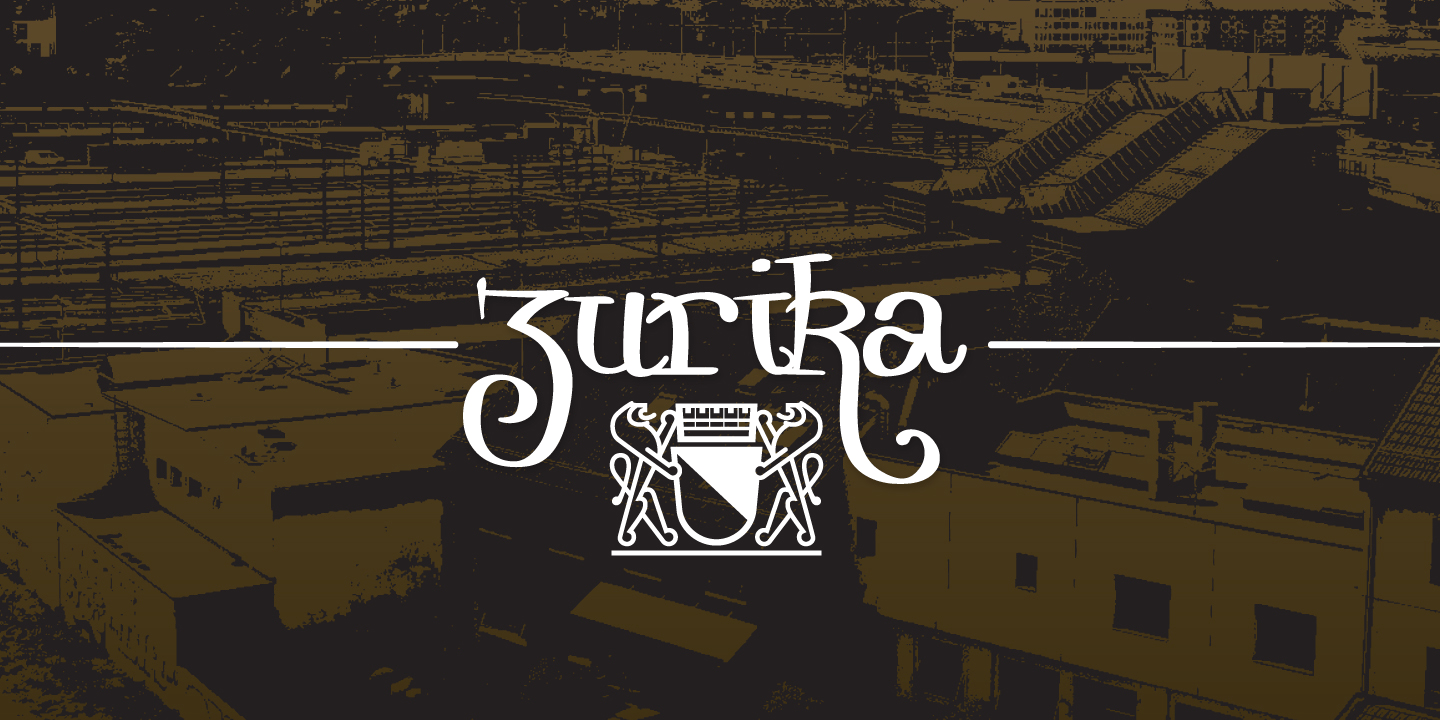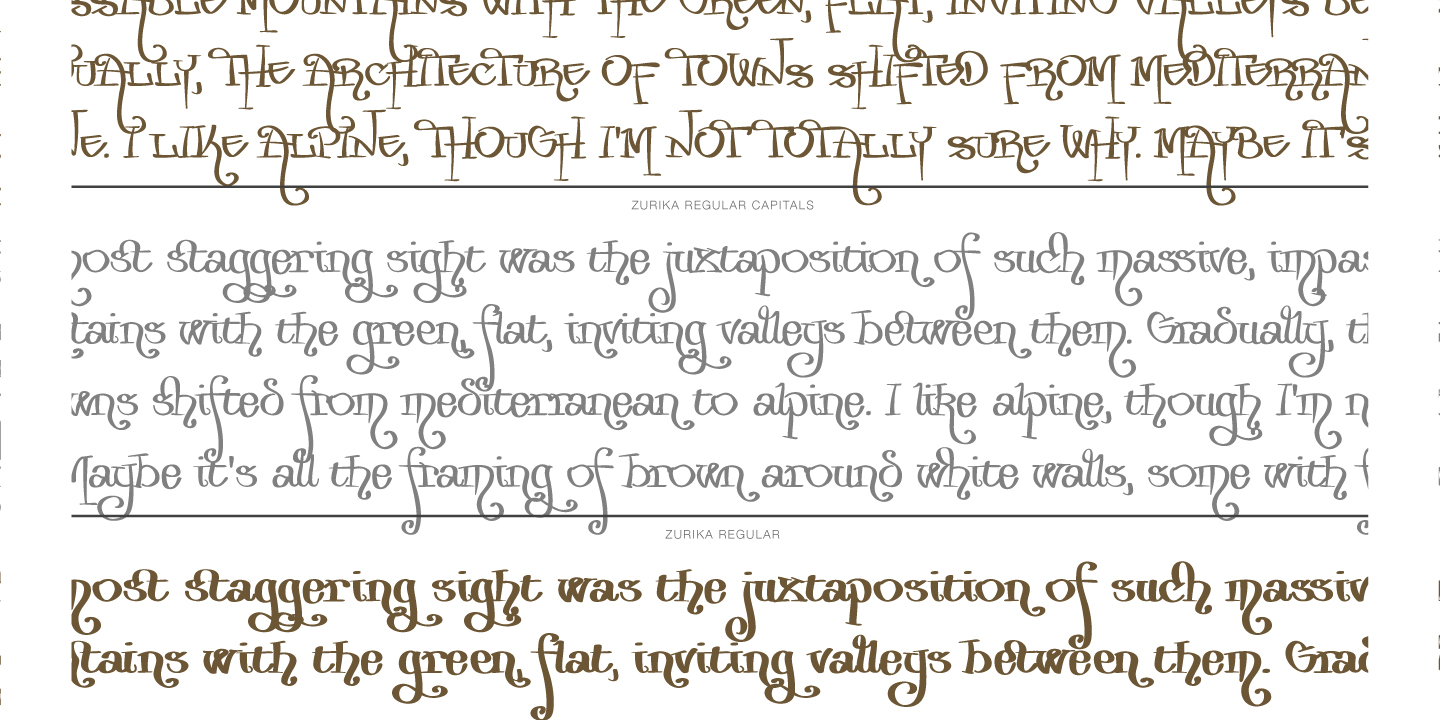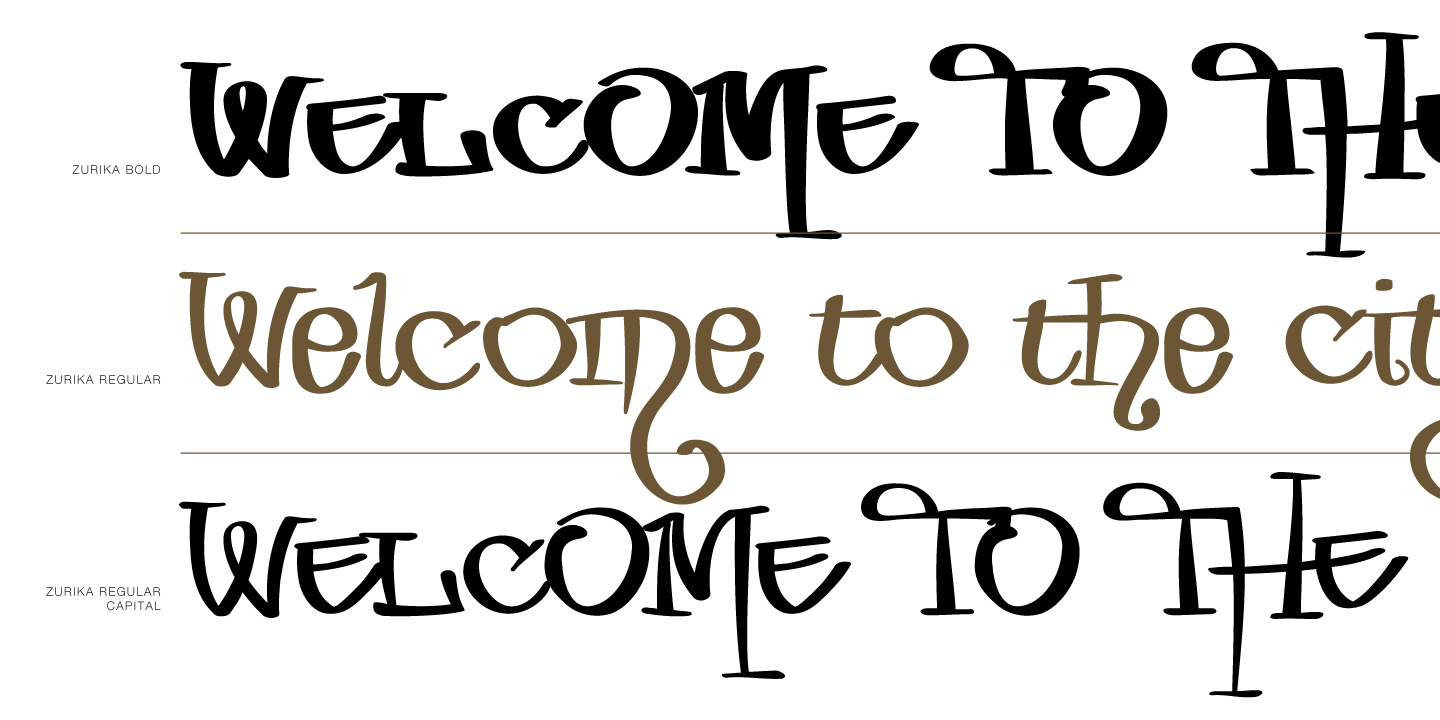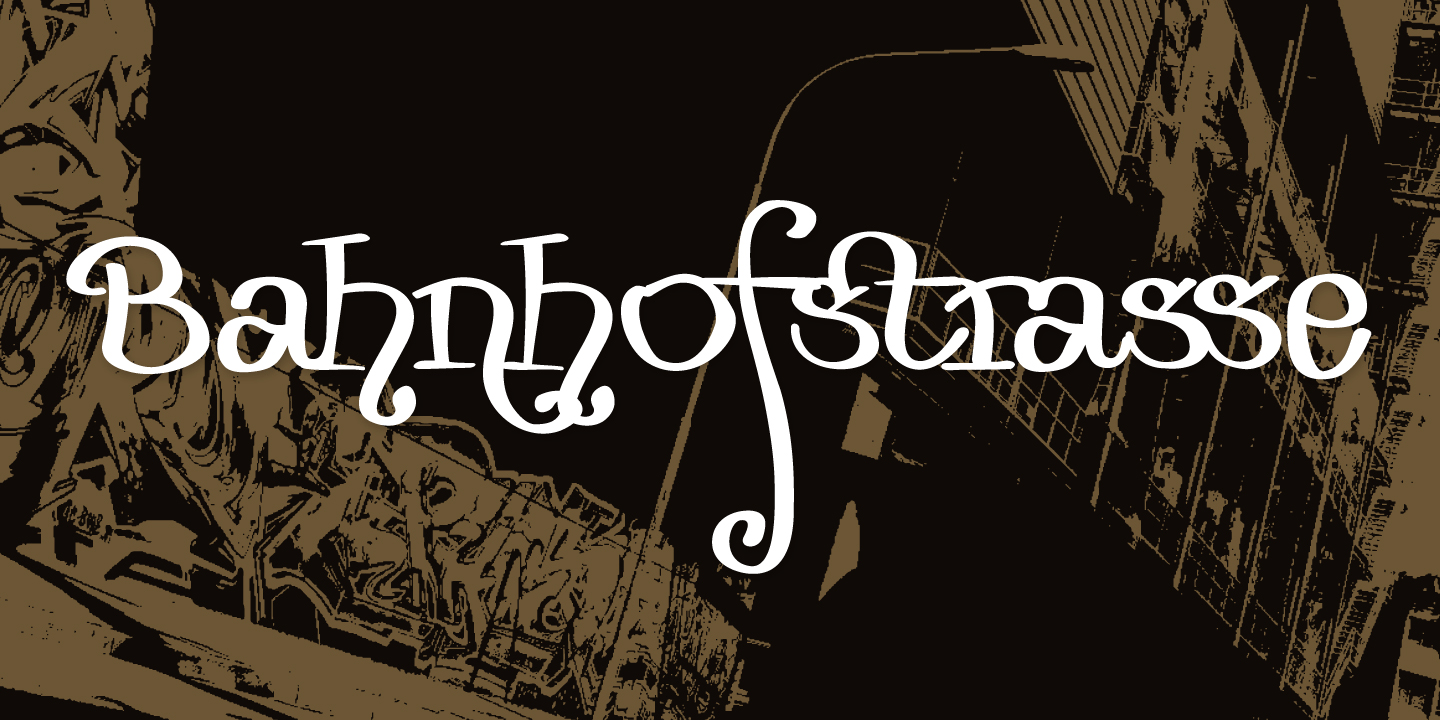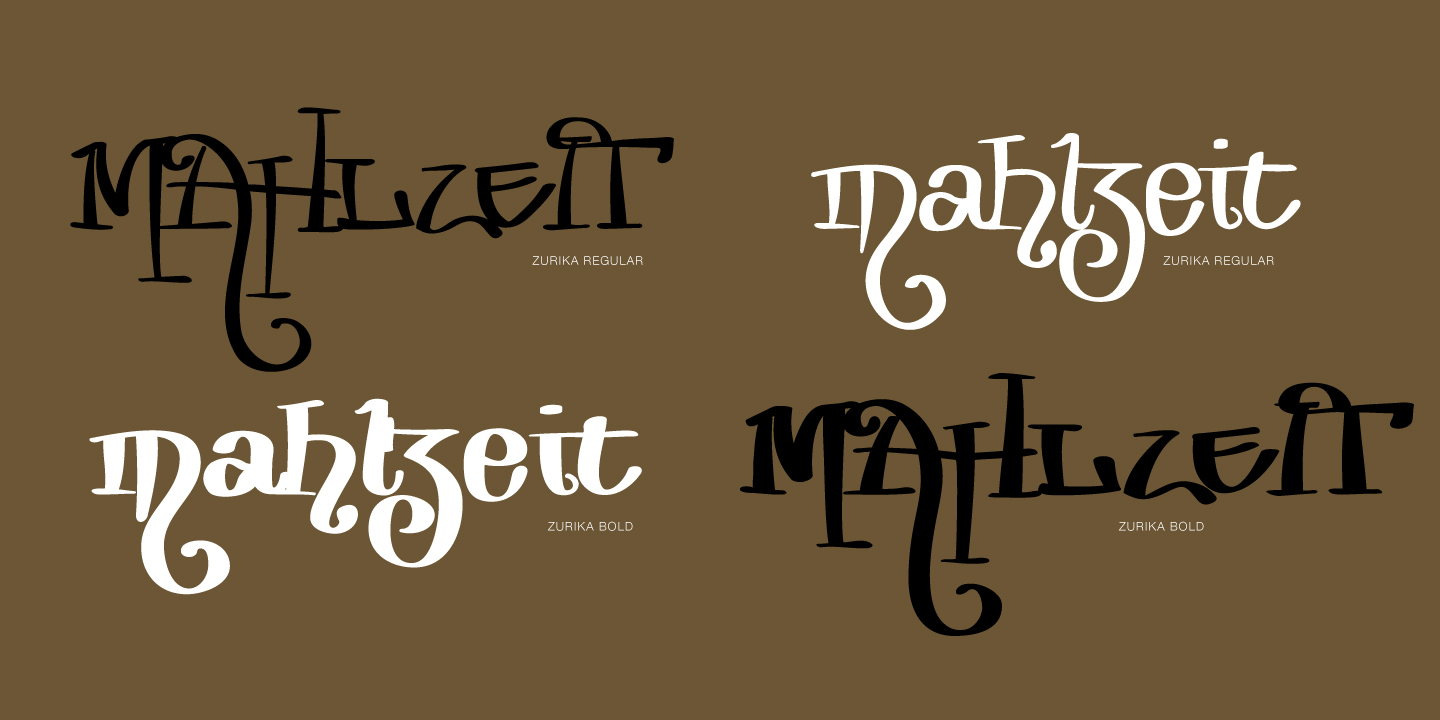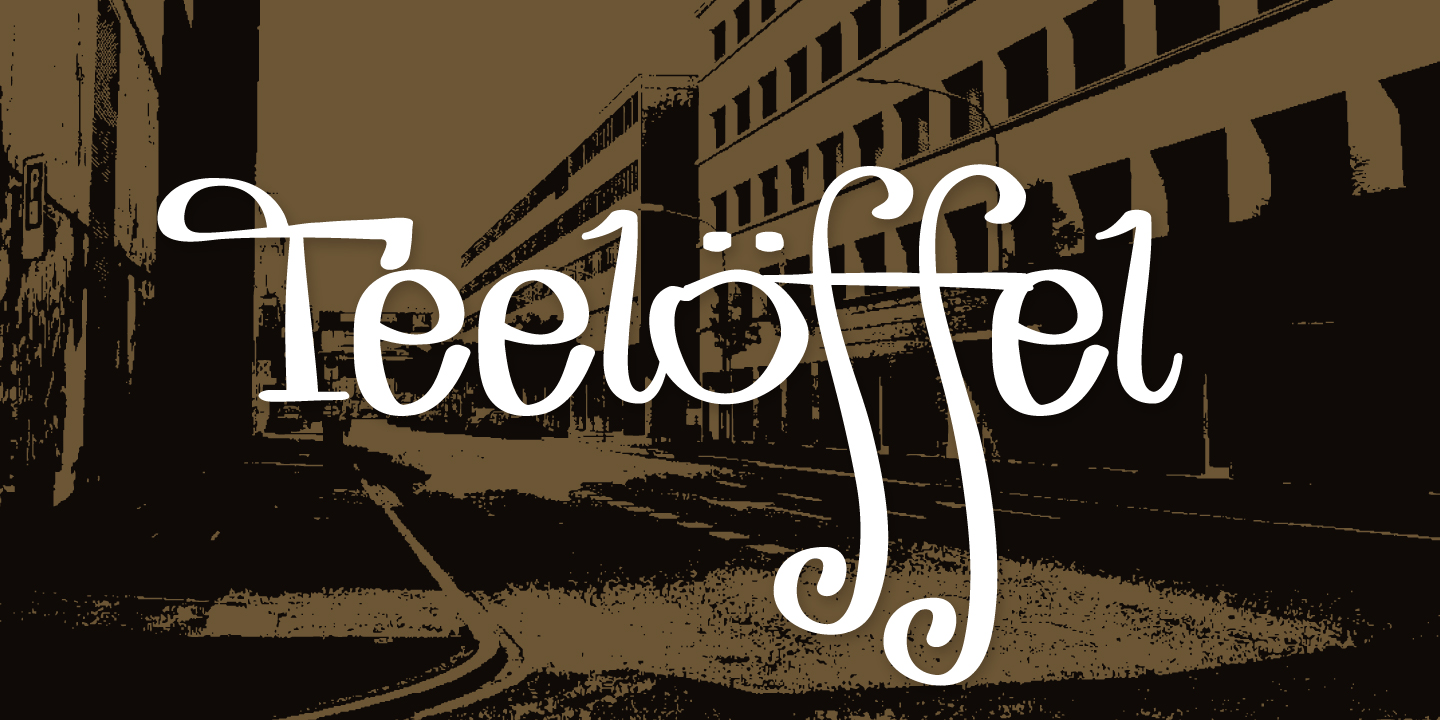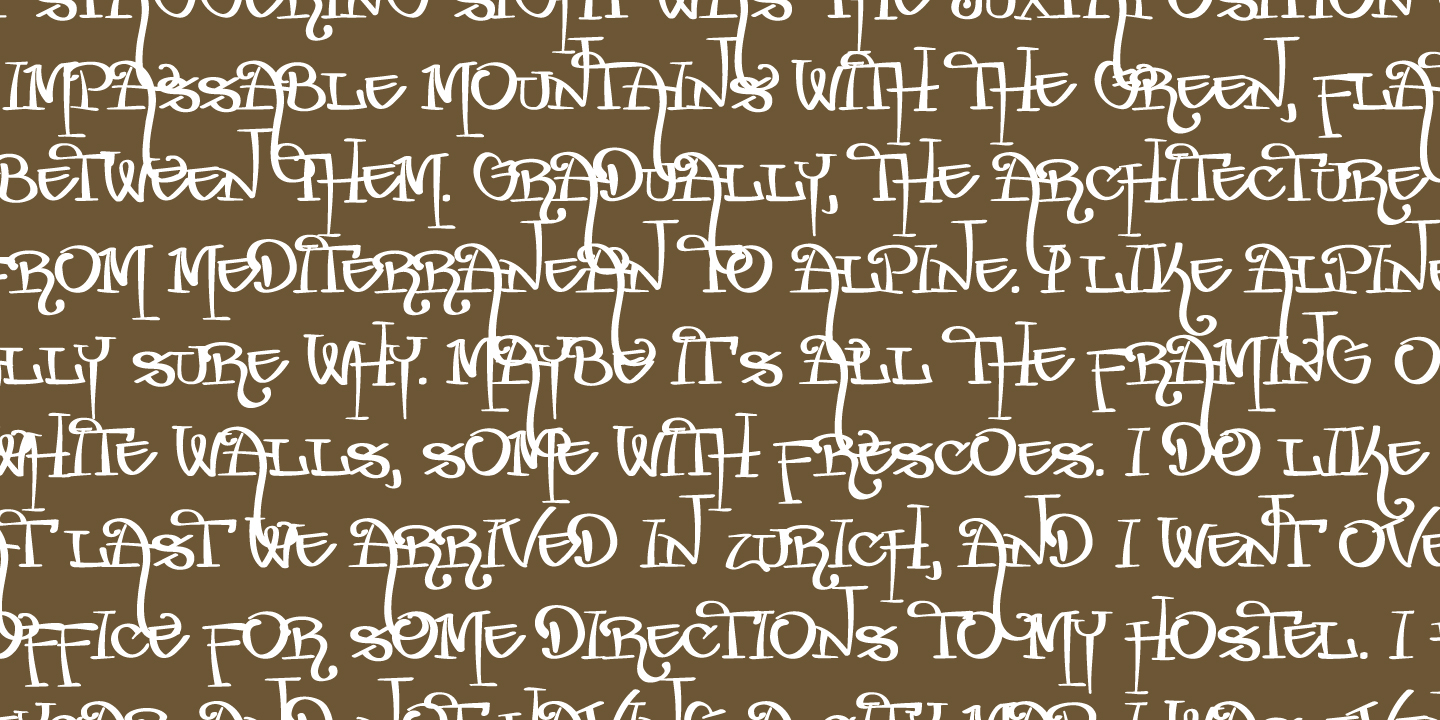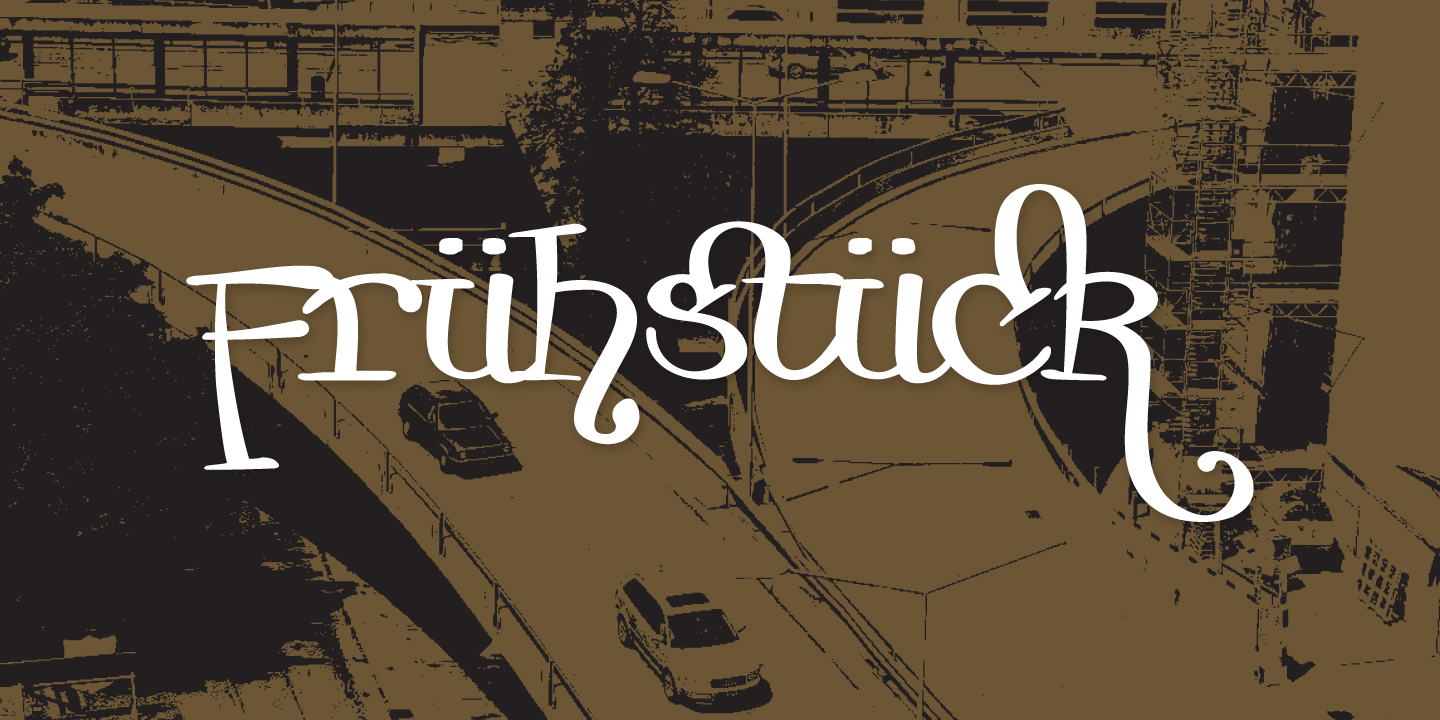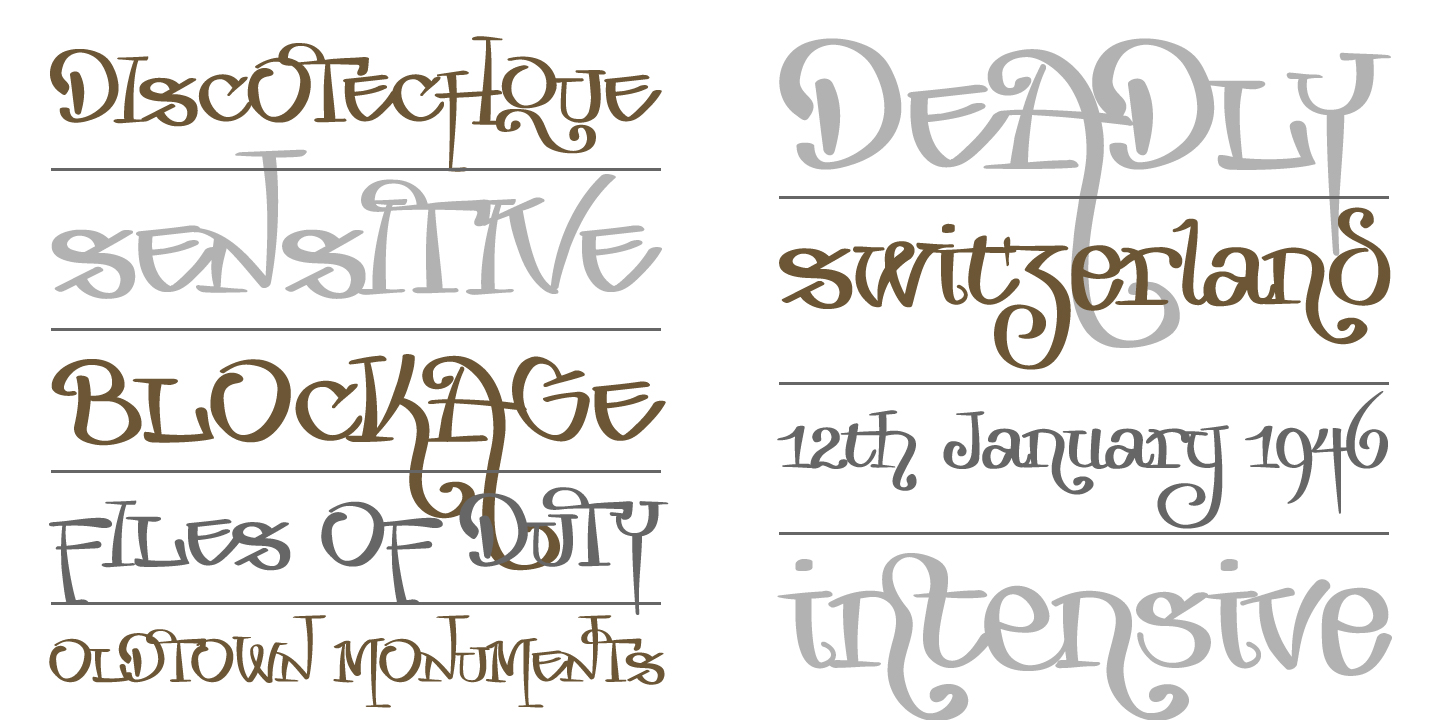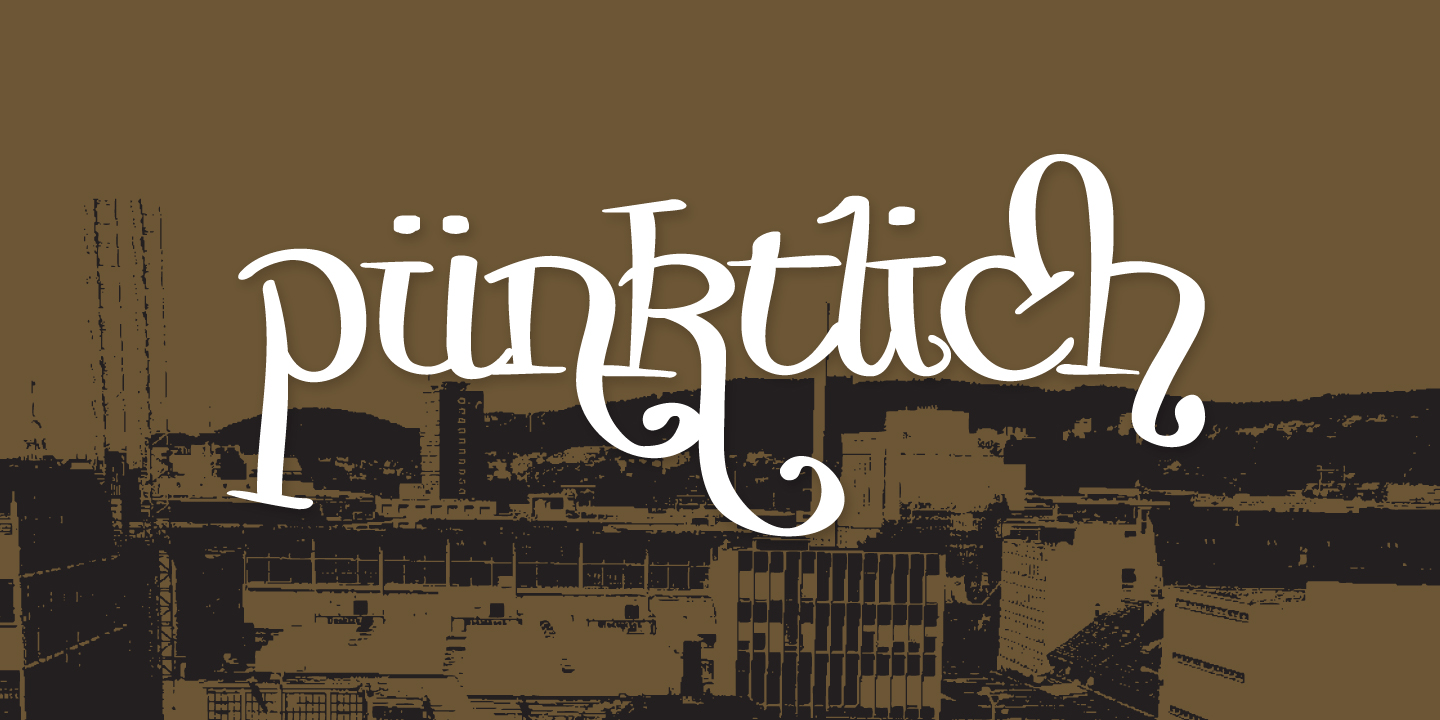
Zurika
Font Family by Typogama
The Zurika typeface was inspired by some lettering that I saw on a bar wall in the swiss city of Zurich. Far from the regular, boring script style most of the boards feature, on this occasion, the bar obviously had an inspired employee who had drawn a series of beautiful curves. The letter closest to this original script would be the capital A. Zurika is a quirky, playful handwritten design that is well suited for use in large sizes to showcase the finer details of each letter. The overall design of this alphabete is a mix of a unicase styling and traditional uppercase and lowercase with a large host of ascenders and descenders that allow the designer to mix the letterforms for even more layout options.